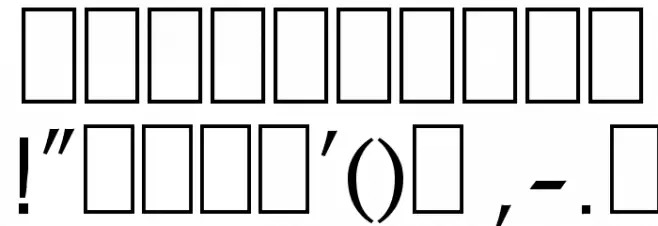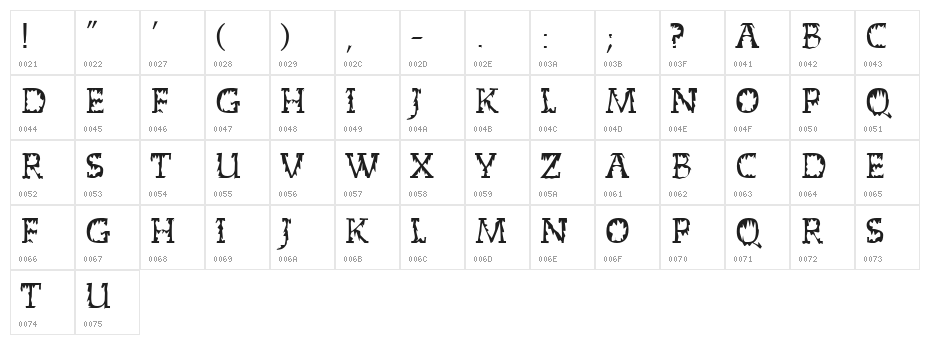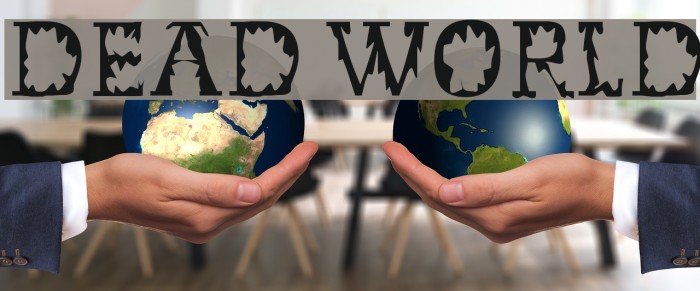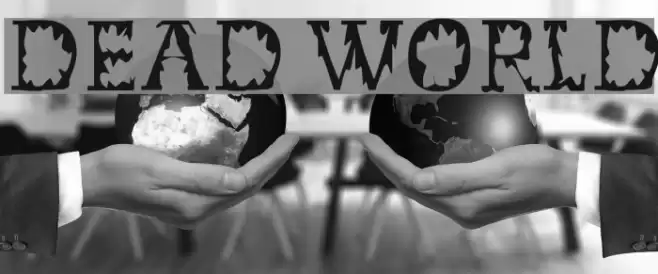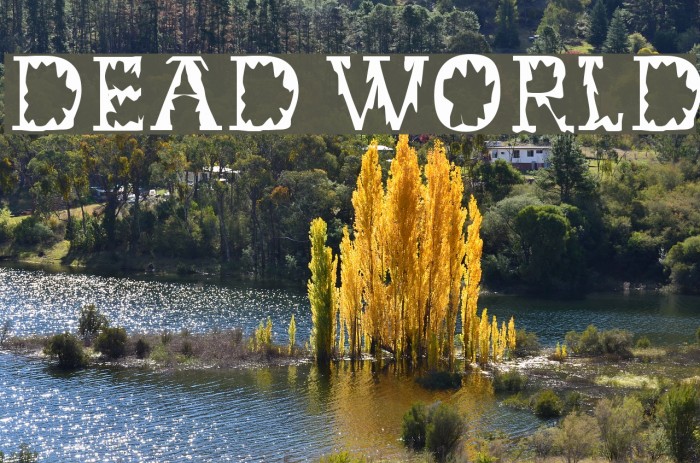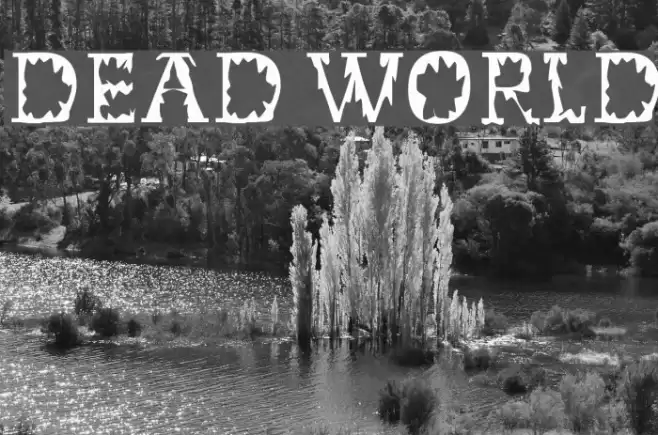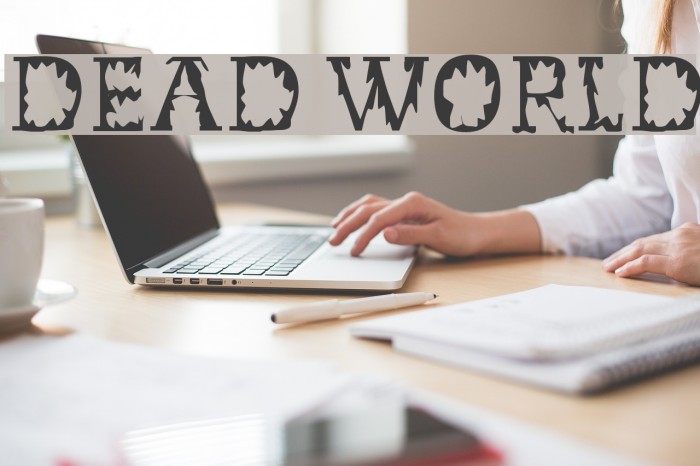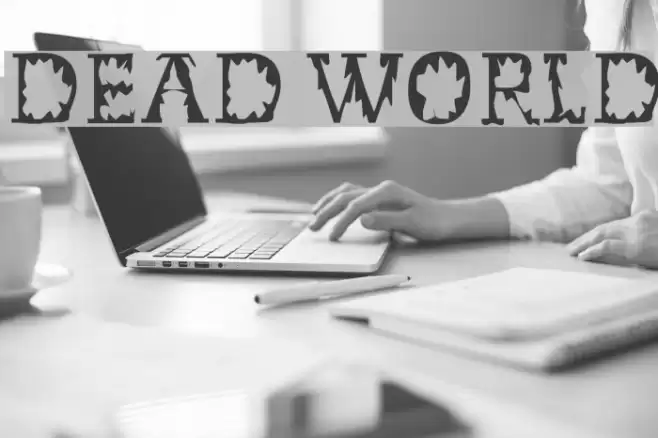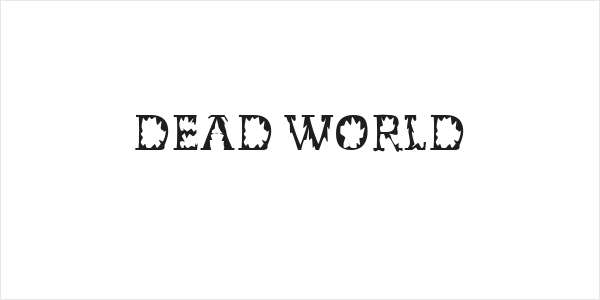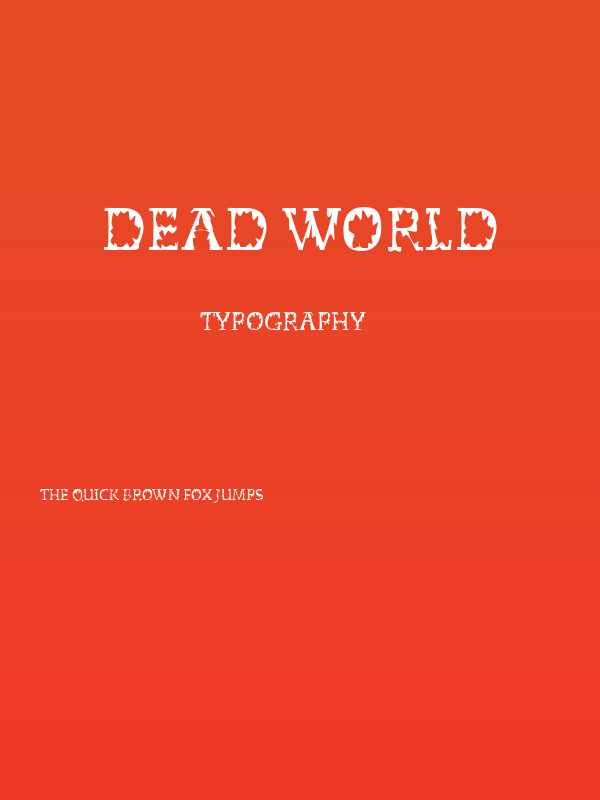
Dead World Font
Dead World Description
This font features a bold and jagged design, reminiscent of a horror or Halloween theme. Each character is adorned with sharp, irregular edges that give it a distressed and eerie appearance. The uppercase and lowercase letters maintain a consistent style, with the jagged elements creating a sense of movement and chaos. The numbers and special characters follow the same design principles, ensuring a cohesive look across all glyphs. This font is perfect for creating an unsettling or spooky atmosphere in any design project.
| Proposed Projects | Ideal for Halloween-themed posters, horror movie titles, haunted house flyers, and spooky event invitations. |